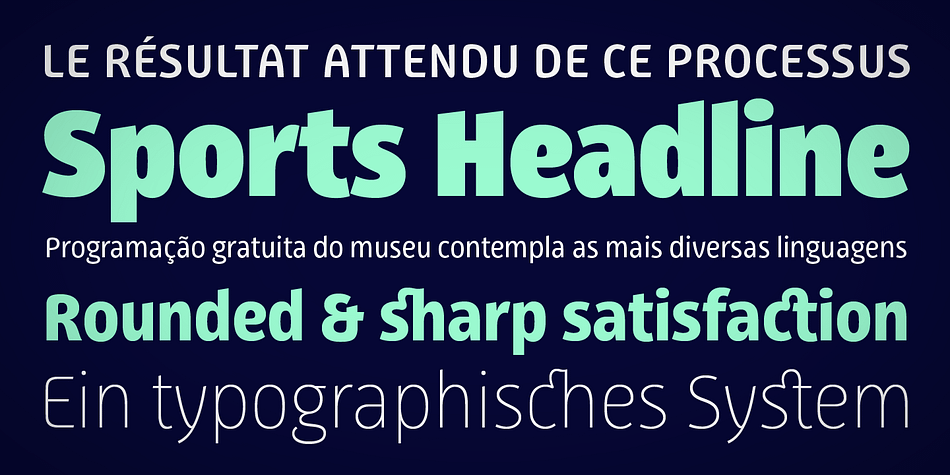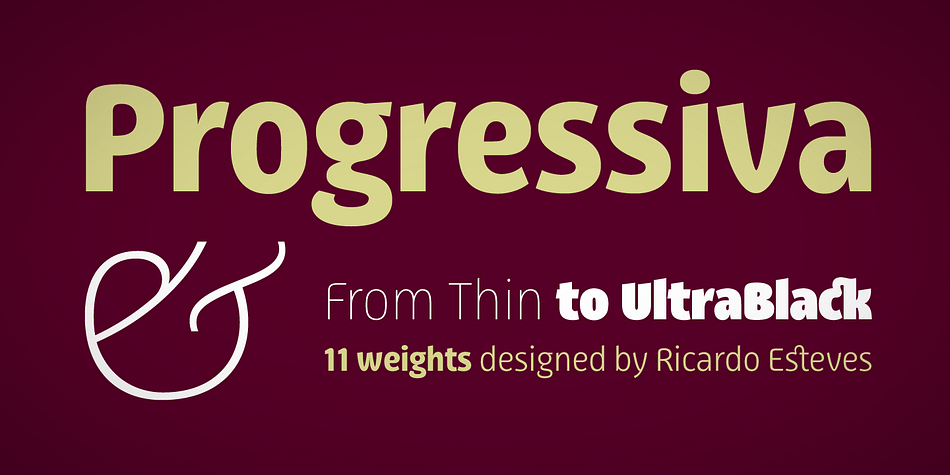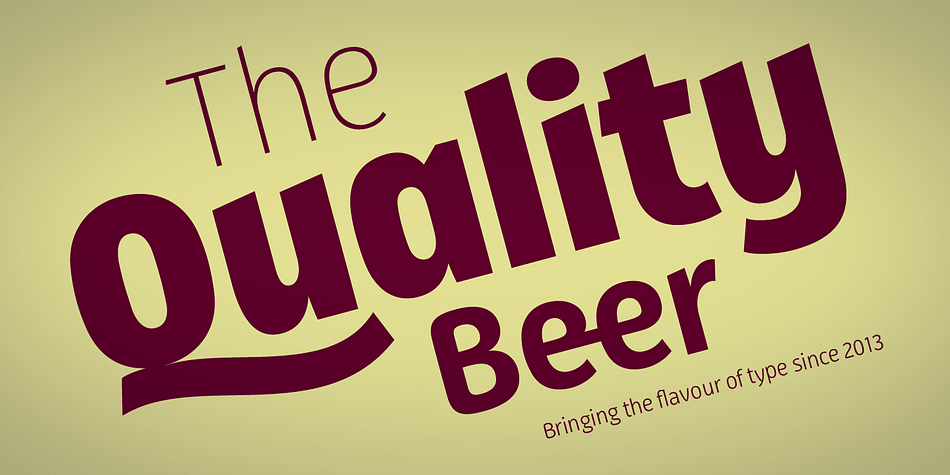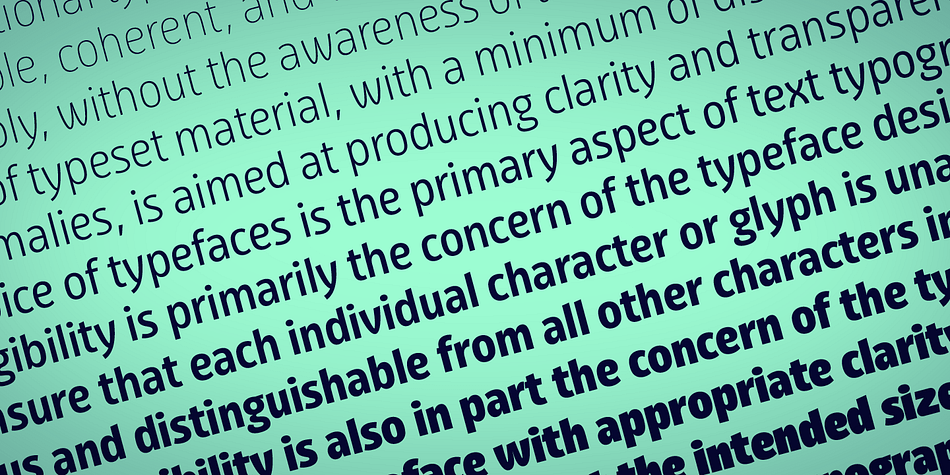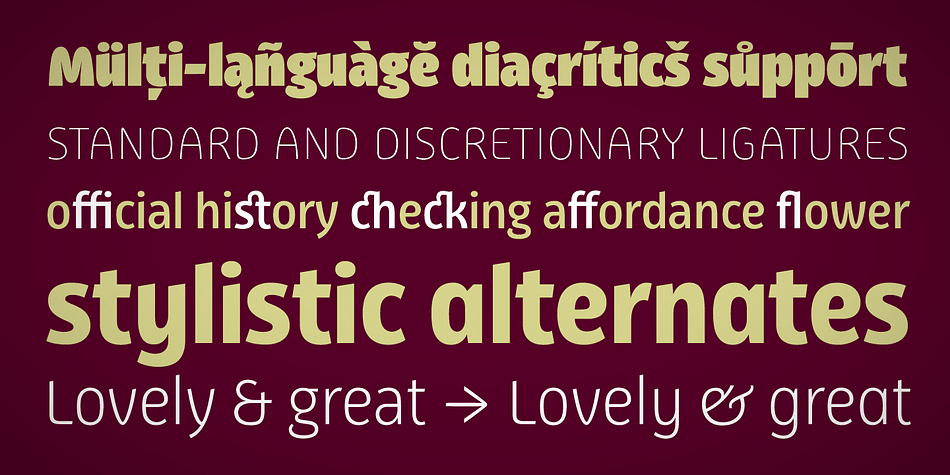
Progressiva
Designed by Ricardo Esteves Gomes, Progressiva is a sans serif font family. This typeface has eleven styles and was published by Outras Fontes.
Progressiva is a sans serif type family for text and display usage. With some unique playful forms and a little bit condensed structure, the family is ideal for texts that require some personality and titles with great visual presence. The family is comprised of 11 roman styles, from Thin to UltraBlack, giving a lot of space for visual variance. Each font includes some standard and discretionary ligatures as well as some alternative letterforms included in stylistic alternates OpenType feature. It’s suitable for magazines, posters, packaging, advertising, signage systems, corporate material and so on.